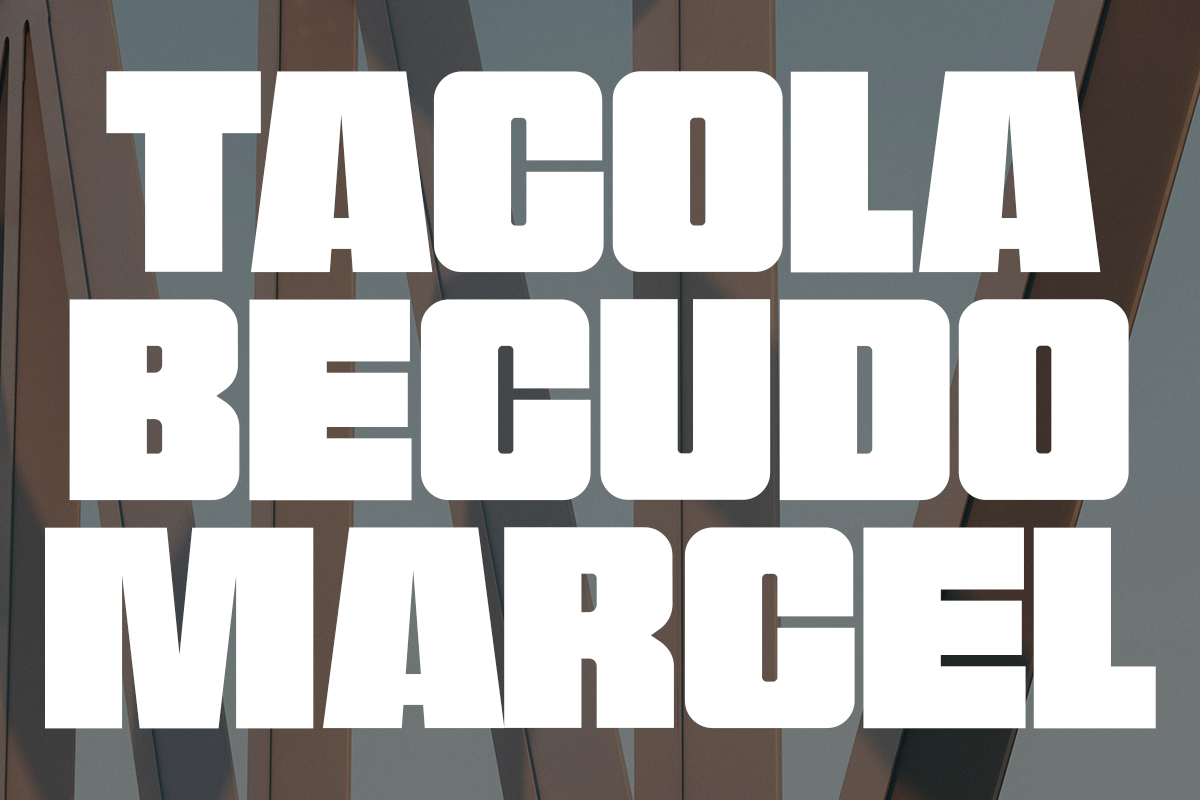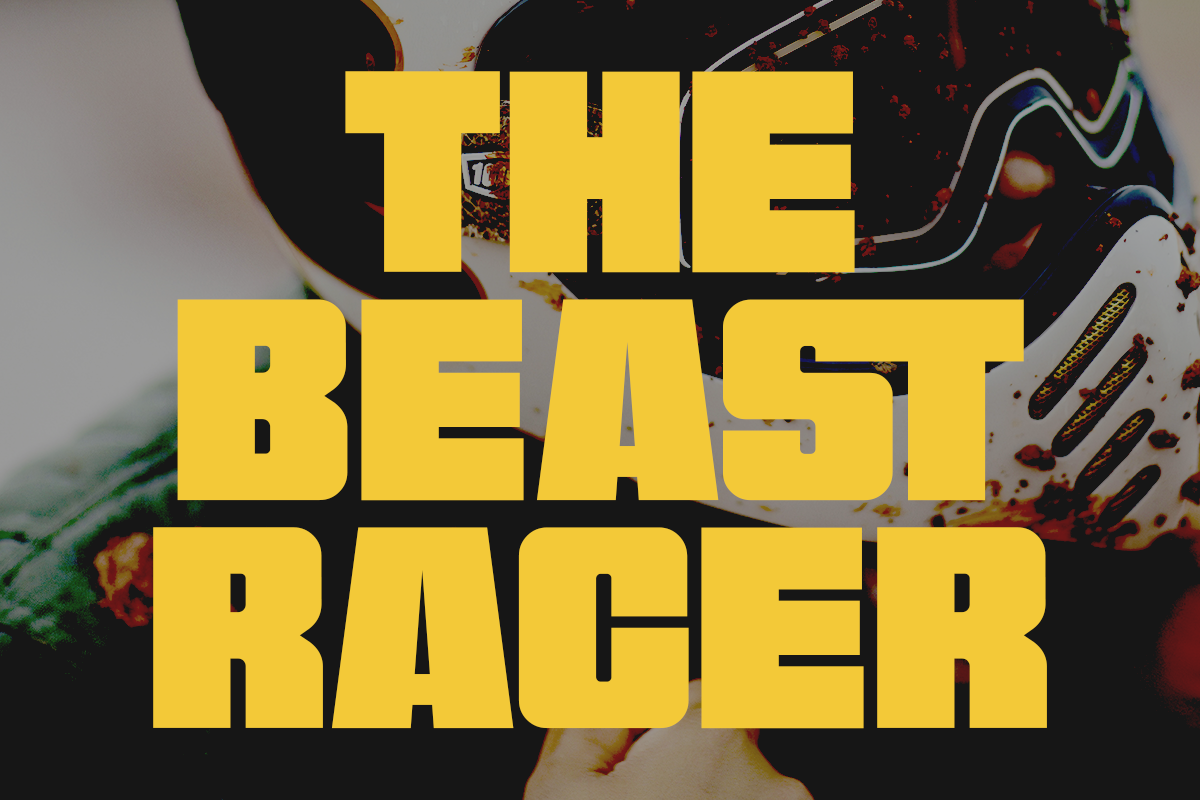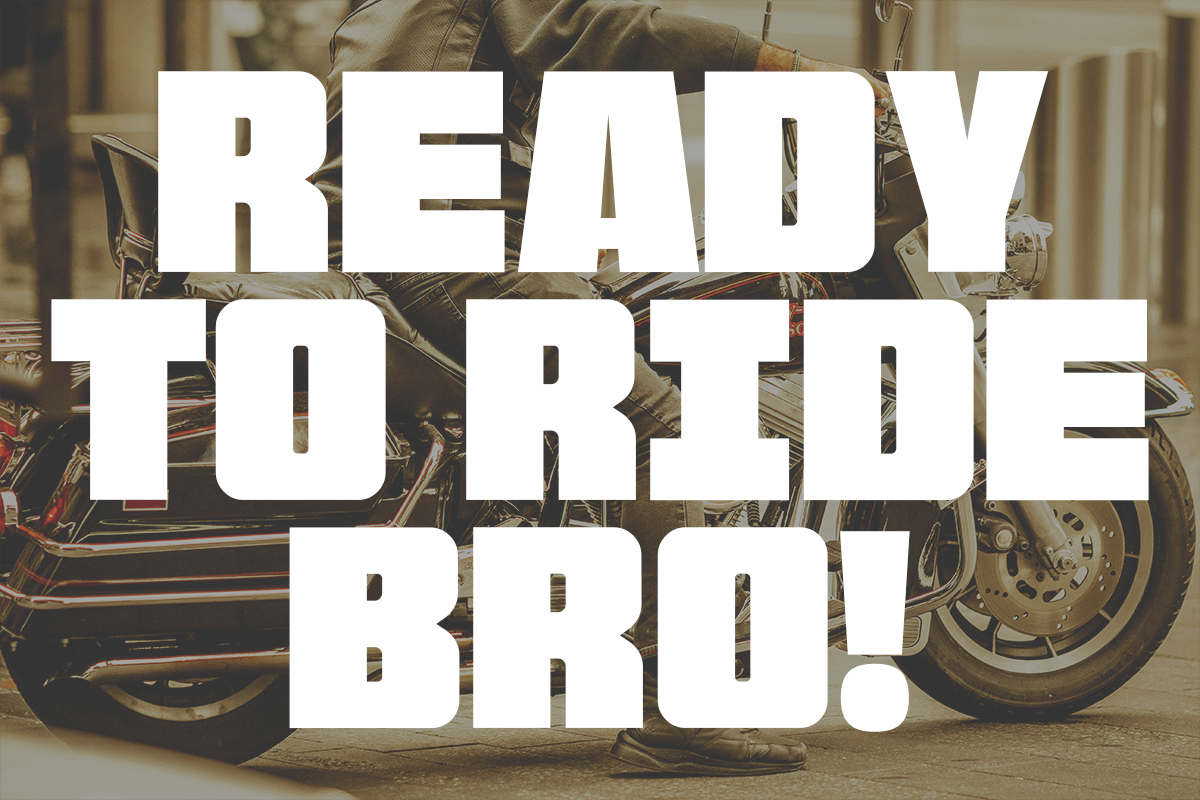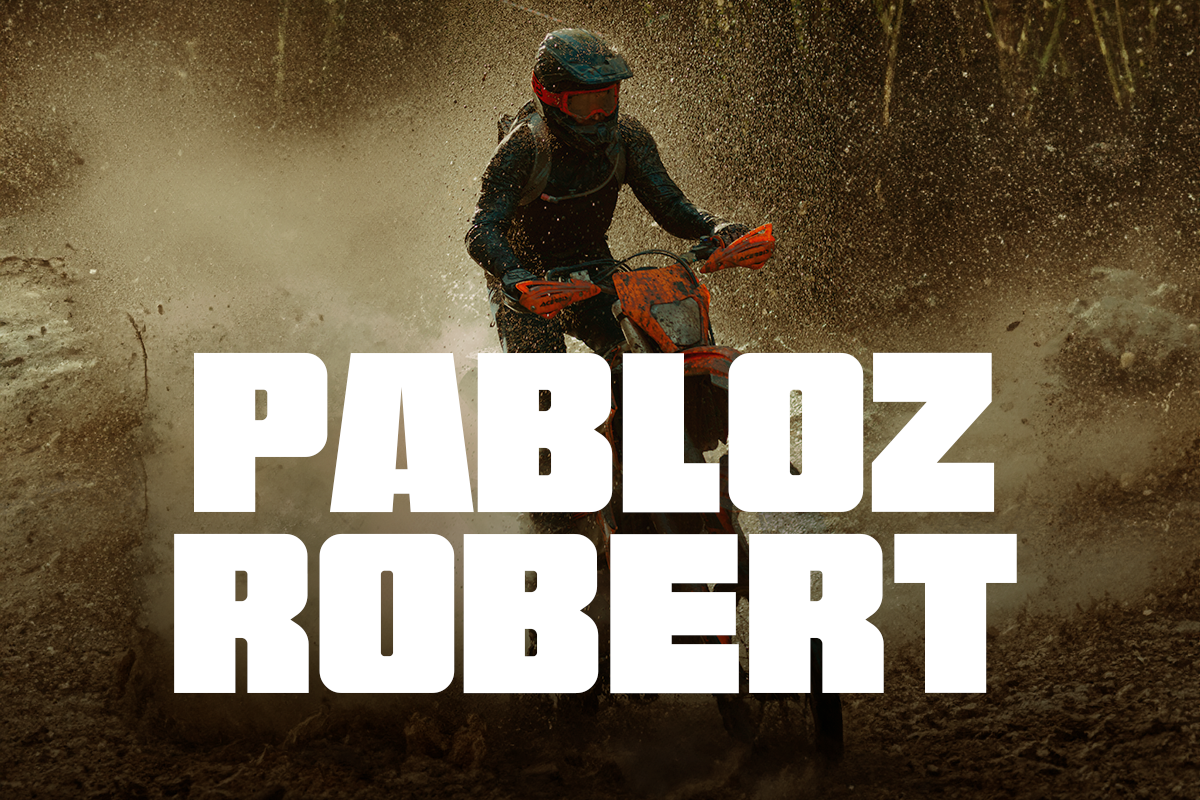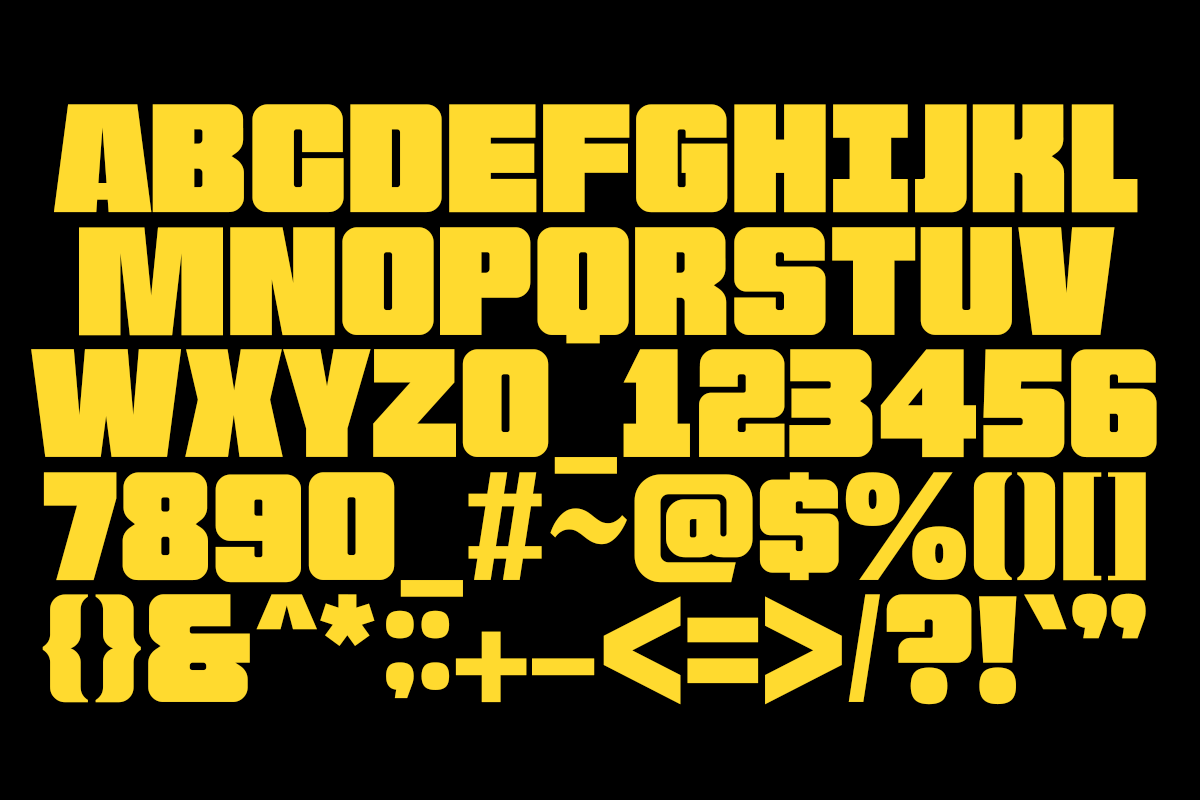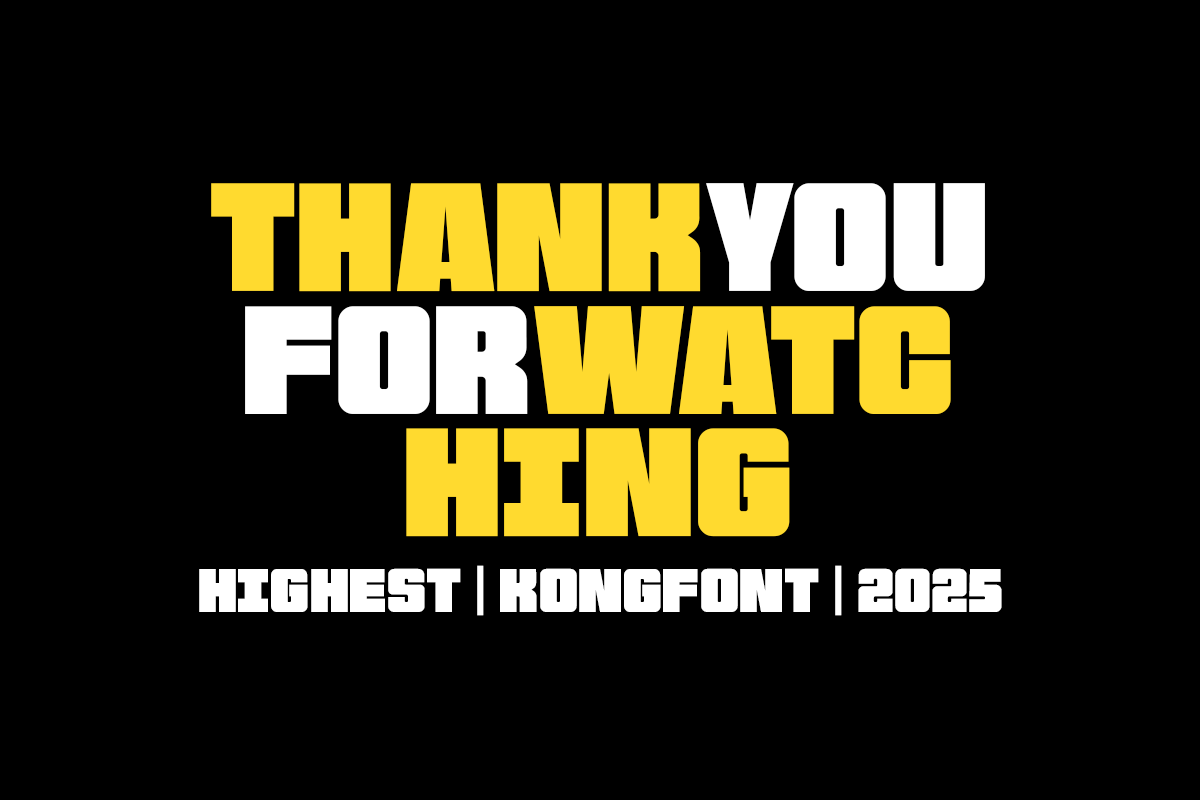
Highest A Modern Display Bold Font Display Font provides a variety of font types that have interesting characteristics. This time, Highest A Modern Display Bold Font is present as one of the best choices among other fonts. This font is a sans serif with bold letters. Several letters are written in sequence and look beautiful. Highest A Modern Display Bold Font is an easy-to-read font. This type of font does not apply to prints that are too large or too small because it will reduce readability. Must be used with the appropriate font size so that it can provide a maximum attractive impression. Highest A Modern Display Bold Font can be applied to several things, such as product branding. Can be used as a brand label, promotional poster, and shop signage. This font can be used digitally when you want to promote products on social media. In addition to products, this font can also be used to promote a service, such as photography. Highest A Modern Display Bold Font is one of the best fonts for quotes that contain motivation and encouragement. Beautiful letterforms will look great when combined with the right ornaments and colors. Our Display font collection is compatible with Figma Fonts, Canva Fonts, Freepik Fonts, and Adobe Fonts. They also work as Windows and Apple Fonts. For your social media needs, you can use and install fonts in our Script & Signature font collection to use as Instagram Fonts, Facebook Fonts, and Twitter Fonts.